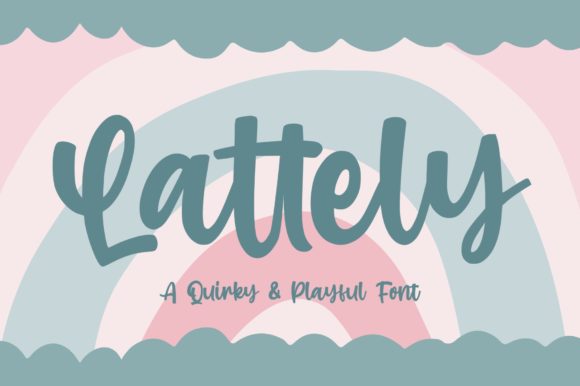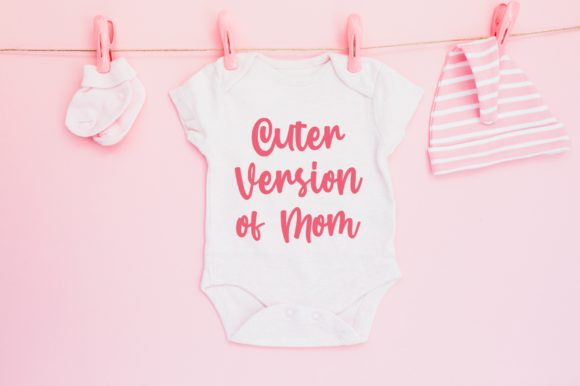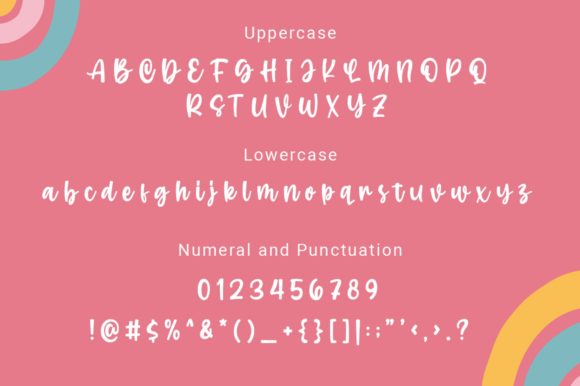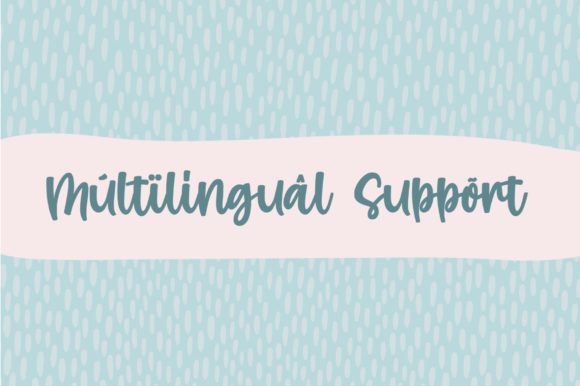
Lattely Font: Cute Handwritten Font for Cricut & DIY Projects!
About the Lattely Font
Step up your design game with Lattely Font, a font that exudes confidence and style. Lattely is a quirky and playful handwritten font. Created with the help of a brush pen, this font has a beautiful flow attached, brightening up each of your designs!
Lattely’s playful energy makes it ideal for headlines, short text blocks on packaging, or social media graphics. Its hand-drawn charm adds a personal touch to branding for artisan products, cafes, or children’s brands. However, its informal nature makes it unsuitable for body text or UI elements requiring high readability.
Pairing Lattely with a clean sans-serif like Open Sans for body copy creates a balanced contrast, allowing the playful script to stand out. For a more sophisticated feel, consider pairing it with a delicate serif font like Lora. Alternatively, a geometric sans-serif like Montserrat can add a touch of modern edge.
Lattely’s overall personality is best described as friendly and approachable, with a touch of whimsy. Its slightly irregular strokes convey authenticity and warmth, making it perfect for conveying a handcrafted or artisanal feel.
Lattely Font Usage Examples